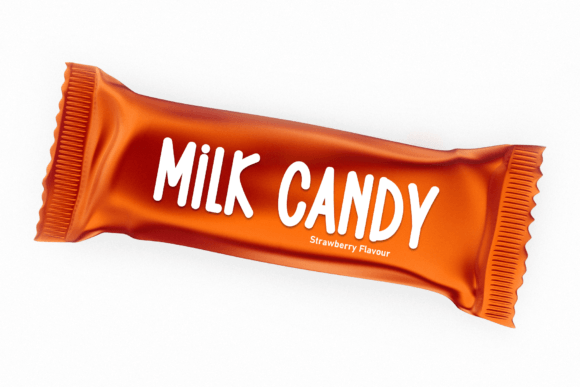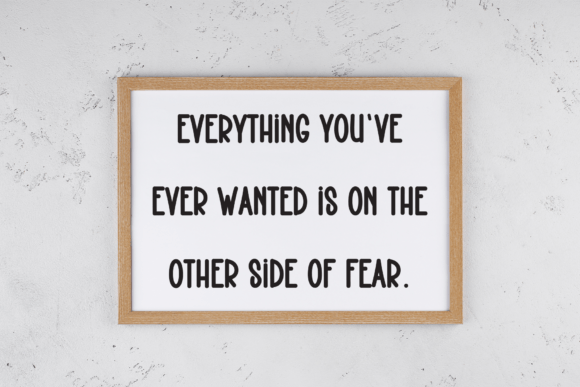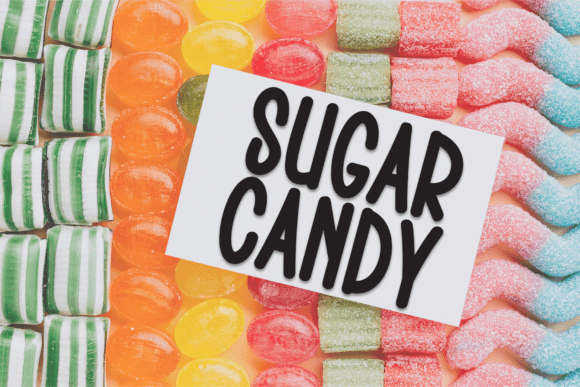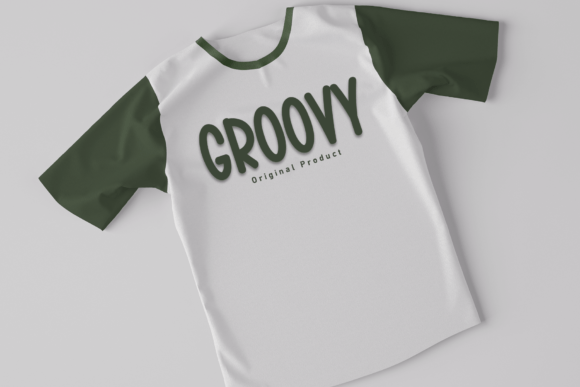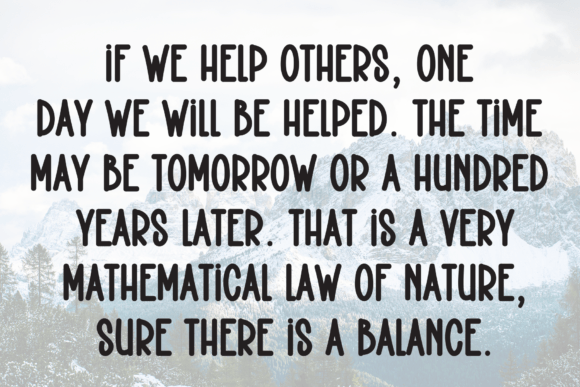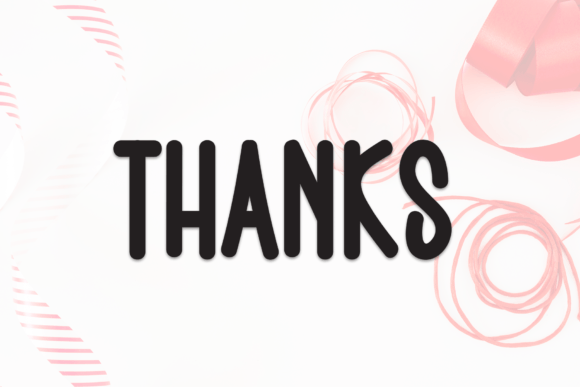
Introduction to Happy Reborn Font
Have you ever stared at a blank canvas, struggling to bring your creative vision to life? We’ve all been there – the blank page, the cursor blinking, the endless possibilities swirling in our minds. But what if we told you that the perfect design resource is just a click away? Enter the Happy Reborn Font, a delightful and versatile handwritten font that’s sure to breathe new life into your creative project.
With its natural, unique style, the Happy Reborn Font is the perfect addition to any design. Whether you’re working on a high-quality logo, a free download template, or a transparent background design, this font is sure to elevate your work to the next level. Its friendly and approachable feel makes it a valuable asset for designers looking to add a personal touch to their projects.
Key Features of Happy Reborn Font
- High-quality, professional design resource ideal for creative projects
- Features a transparent background, making it easy to overlay on images or use as a standalone element
- Includes a wide range of characters, including uppercase and lowercase letters, numbers, and punctuation marks
- Designed with a modern, playful aesthetic, perfect for adding a touch of whimsy to your design
- Perfect for use in digital design, print projects, or any other creative endeavor where a unique, eye-catching font is needed
Honest Review: Happy Reborn Font
I recently had the opportunity to test the Happy Reborn Font, and I must say it’s a solid addition to any designer’s toolkit. This font is perfect for designers working on creative projects that require a playful and modern touch.
- ✨ High-quality design: The Happy Reborn Font is incredibly detailed and well-crafted, making it suitable for a wide range of applications.
- ✨ Transparent background: This allows designers to easily integrate the font into their designs without worrying about unwanted background elements.
- ⚠️ Limited character set: The Happy Reborn Font only includes a limited character set, which may not be suitable for designers working on projects that require a wide range of characters.
- ⚠️ Not ideal for small text: Due to its playful nature, the font may not be the best choice for small text, as it can become difficult to read.
Overall, I’m impressed with the Happy Reborn Font, and I would recommend it to designers working on creative projects that require a modern and playful touch.
Tips for Getting the Most Out of Happy Reborn Font
For best results, use the Happy Reborn Font in conjunction with other high-quality design resources. Experiment with different font sizes, colors, and styles to create a unique and eye-catching design. The Happy Reborn Font is a versatile design resource that can be used in a variety of creative projects.
The Happy Reborn Font is commonly used in creative projects such as logos, brochures, and social media graphics. It’s also a popular choice for designers who want to add a professional touch to their designs. With its high-quality features and transparent background, the Happy Reborn Font is a valuable design resource for any creative project.